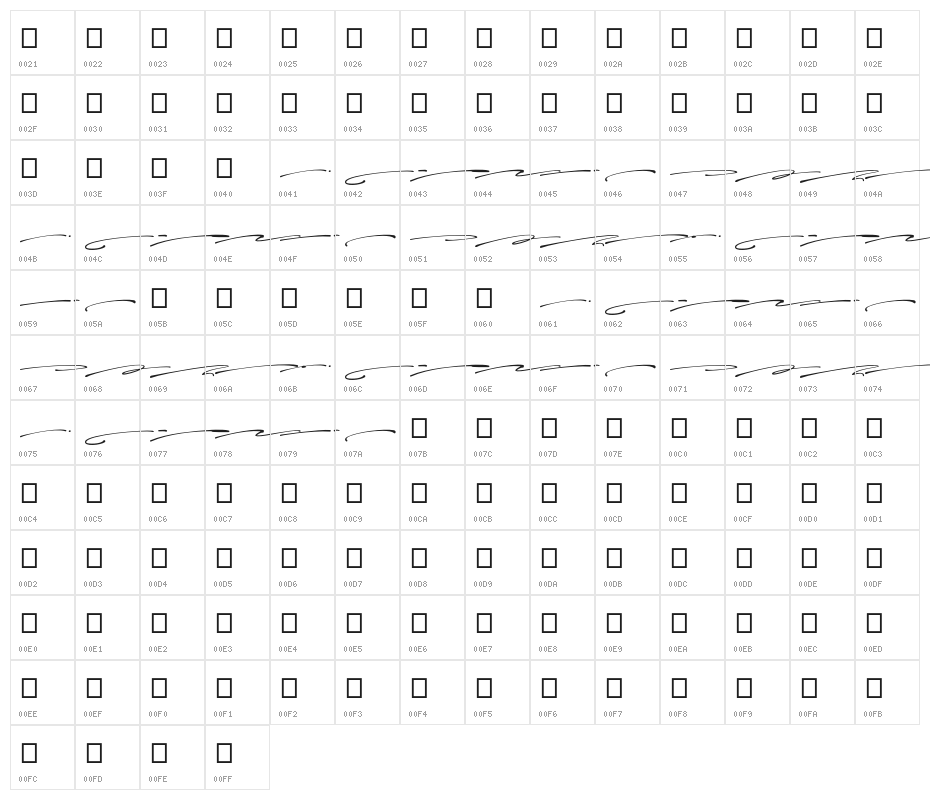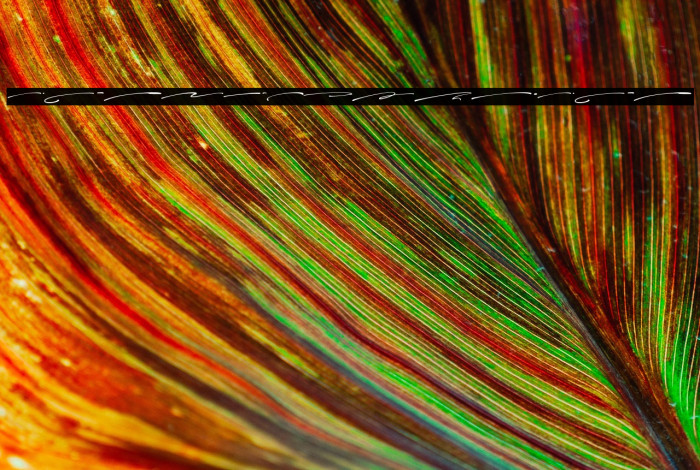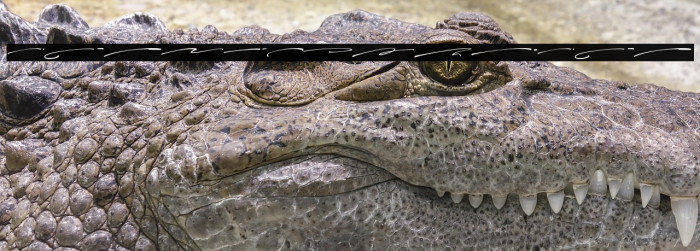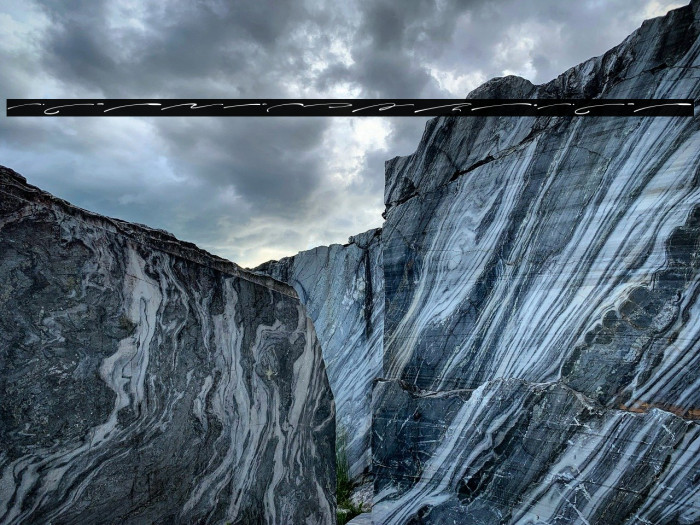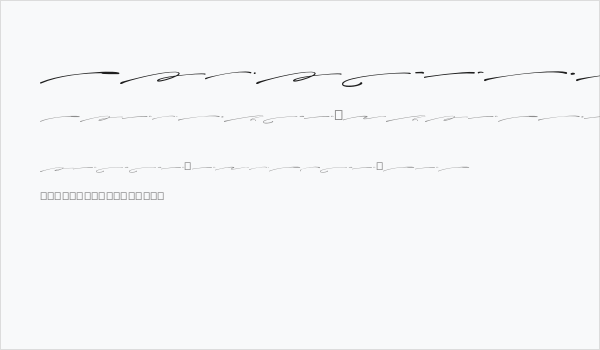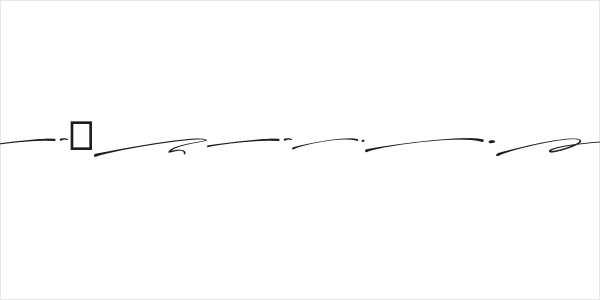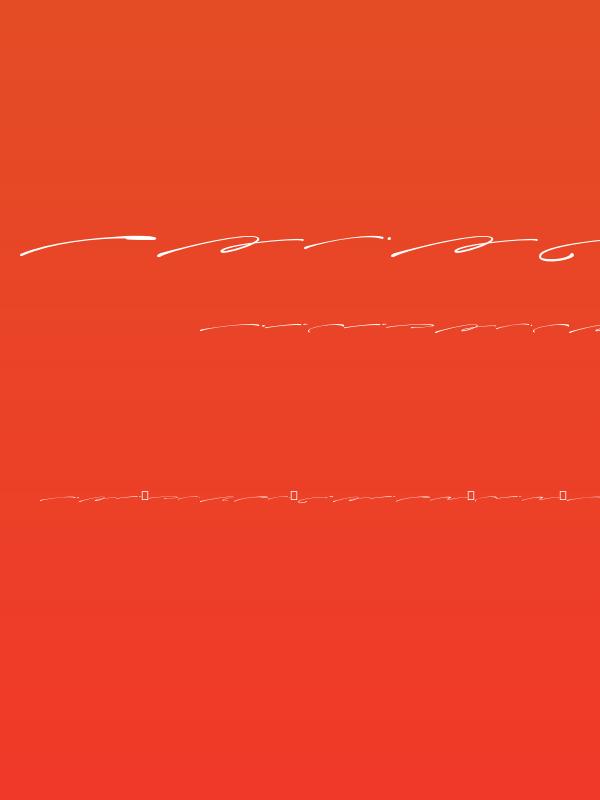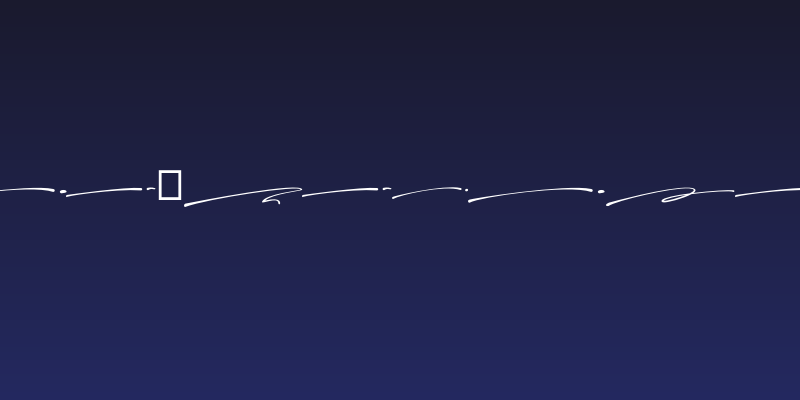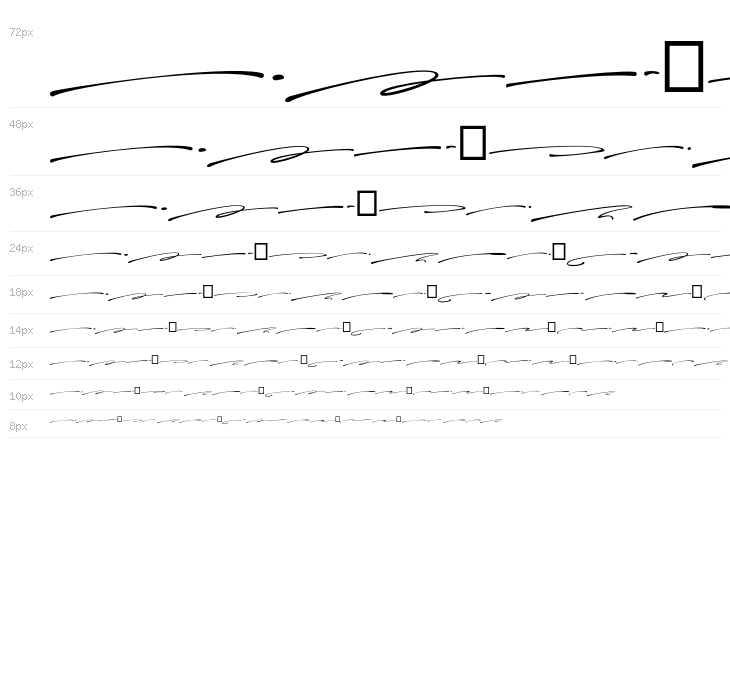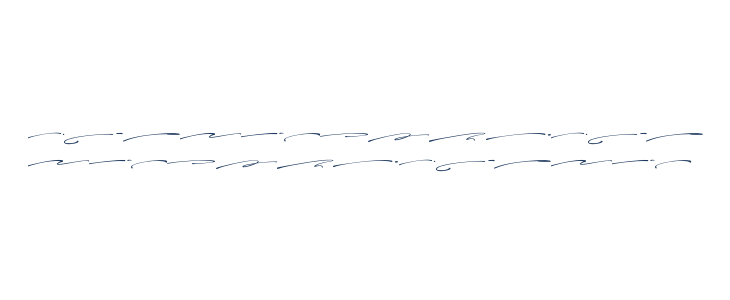
Charlotte Southern Swash Font
Charlotte Southern Swash Description
This font features elegant, flowing script with a distinctly handwritten style. The characters are connected with smooth, sweeping lines that give a sense of fluidity and grace. The strokes are delicate and consistent, creating a harmonious and sophisticated appearance. The overall design is reminiscent of classic calligraphy, with an emphasis on curves and loops that add a touch of flair. This font is ideal for projects that require a personal, artistic touch, such as invitations, greeting cards, or branding materials. Its refined style makes it suitable for conveying elegance and charm.